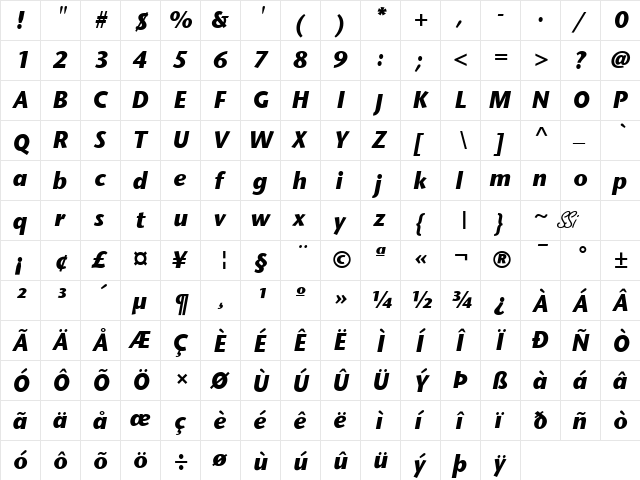
Mesouran Sans Black SSi Bold Italic
Design Context for Mesouran Sans Black SSi Typeface
Mesouran Sans Black SSi is a composed and adaptable typeface that performs quietly and consistently across a wide range of design contexts. The slanted form adds forward momentum and visual energy. The heavy weight commands attention and anchors typographic hierarchies.
Pro Tip: Use Mesouran Sans Black SSi for emphasis, pull quotes, and subheadings where its slanted energy can add rhythm to the layout.